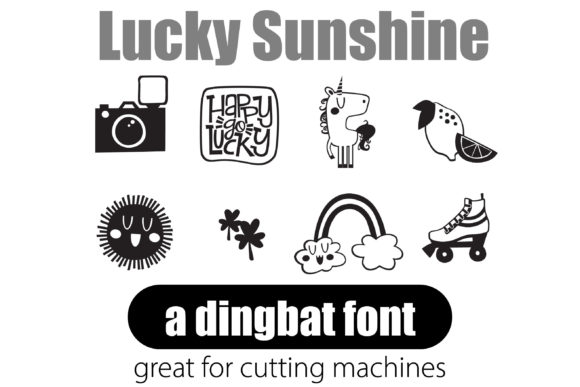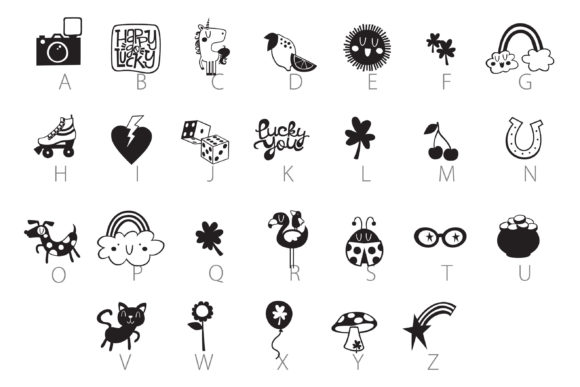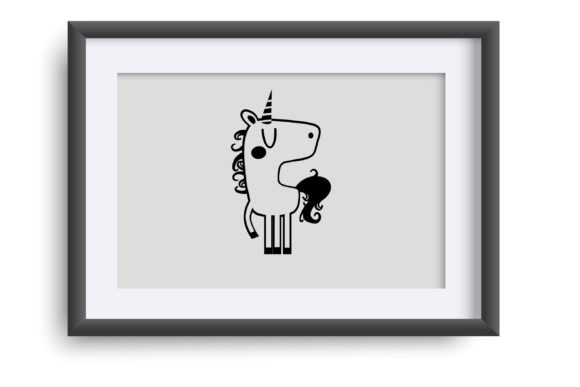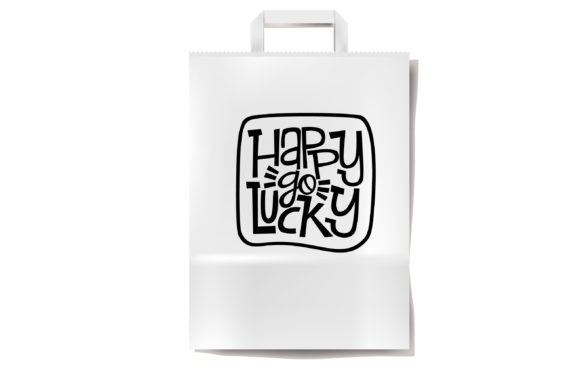
Lucky Sunshine Font
About Lucky Sunshine Font
The Lucky Sunshine pack is an amazing and unique collection of two dingbat fonts designed to help you generate a wide range of lovely and charming designs by typing capital and small letters as well as numbers. The first font is a traditional, black and white dingbat font that features adorable Irish-themed objects, lucky objects, and symbols of happiness, while the second font is a full-color SVG (Scalable Vector Graphics) dingbat font that features the same lovely designs. Both fonts are perfect for use with vinyl and cutting machines.
One of the best things about the Lucky Sunshine pack is its versatility. The first font’s traditional black and white style makes it perfect for projects that need a touch of vintage charm, while the second font’s full-color SVG style makes it perfect for projects that need a touch of modern and playful charm. Both fonts can be used for a wide range of projects, from designing stunning and delightful logos to adding a touch of luck to decorative patterns, bullet points to lists, or more.
Another great thing about the Lucky Sunshine pack is how easy it is to use. With a few keystrokes, users can create a wide range of lovely designs. The first font’s black and white style makes it easy to read and use, while the second font’s color and detail make it visually stunning. Both fonts come with clear, concise instructions to help users get started quickly.
In addition to their versatile and delightful charm, the Lucky Sunshine Pack is also just great design. Both fonts are packed with charm, wit, and unique style, making them perfect choices for projects that need a touch of luck and happiness. The first font’s traditional black and white style sets it apart from other dingbats fonts and makes it a perfect choice for projects that need a touch of vintage charm or Irish-themed luck, while the second font’s full-color SVG style makes it a perfect choice for projects that need a touch of modern and playful charm or luck.
Overall, the Lucky Sunshine pack is a brilliant and unique collection of two dingbat fonts designed to help designers create stunning and delightful designs. Whether you’re designing vintage and charming Irish-themed logos, adding a touch of luck to decorative patterns, bullet points to lists, or more, the Lucky Sunshine pack is an easy-to-use and intuitive tool that anyone can use to create unique designs that set their projects apart from the competition.